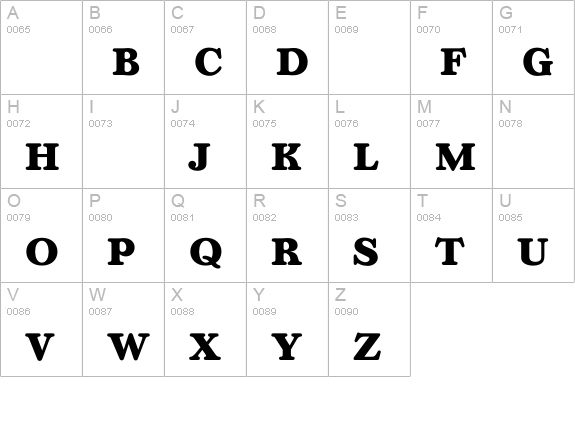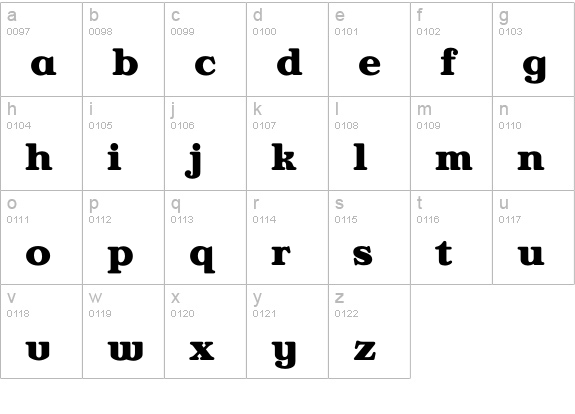
AppleyardBold Font Details
AppleyardBold is a modern and stylish font that exudes confidence and sophistication. With its bold and eye-catching design, this font is perfect for creating impactful headers, logos, and branding materials. The sleek curves and sharp edges of AppleyardBold make it stand out and leave a lasting impression. Best of all, AppleyardBold is available for free download at FontsMarket.com. This means you can easily access this premium font without any cost, making it a valuable addition to your design toolkit. Whether you're a graphic designer, marketer, or creative professional, AppleyardBold is sure to elevate your projects and help you make a statement. Download it today and unleash your creativity with this stunning typeface.